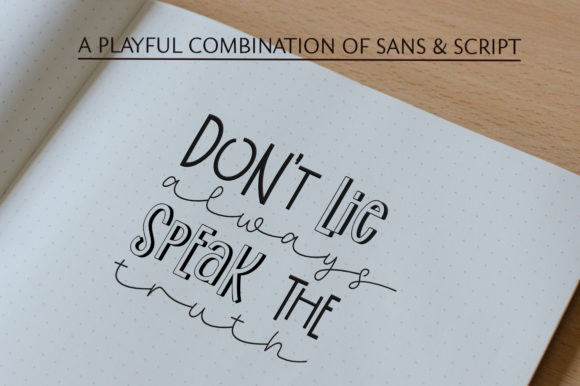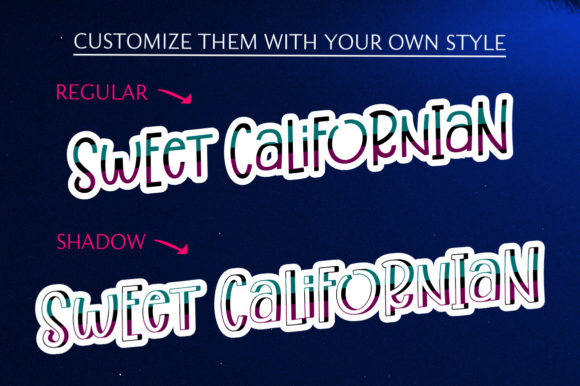
Best Friend Forever Font
db-ku.com - Script & Handwritten -- Best Friend Forever is a playful handwritten font trio (handwritten, display and sans serif). As a result of its combination of styles, this font is incredibly versatile, fitting a wide spectrum of designs.